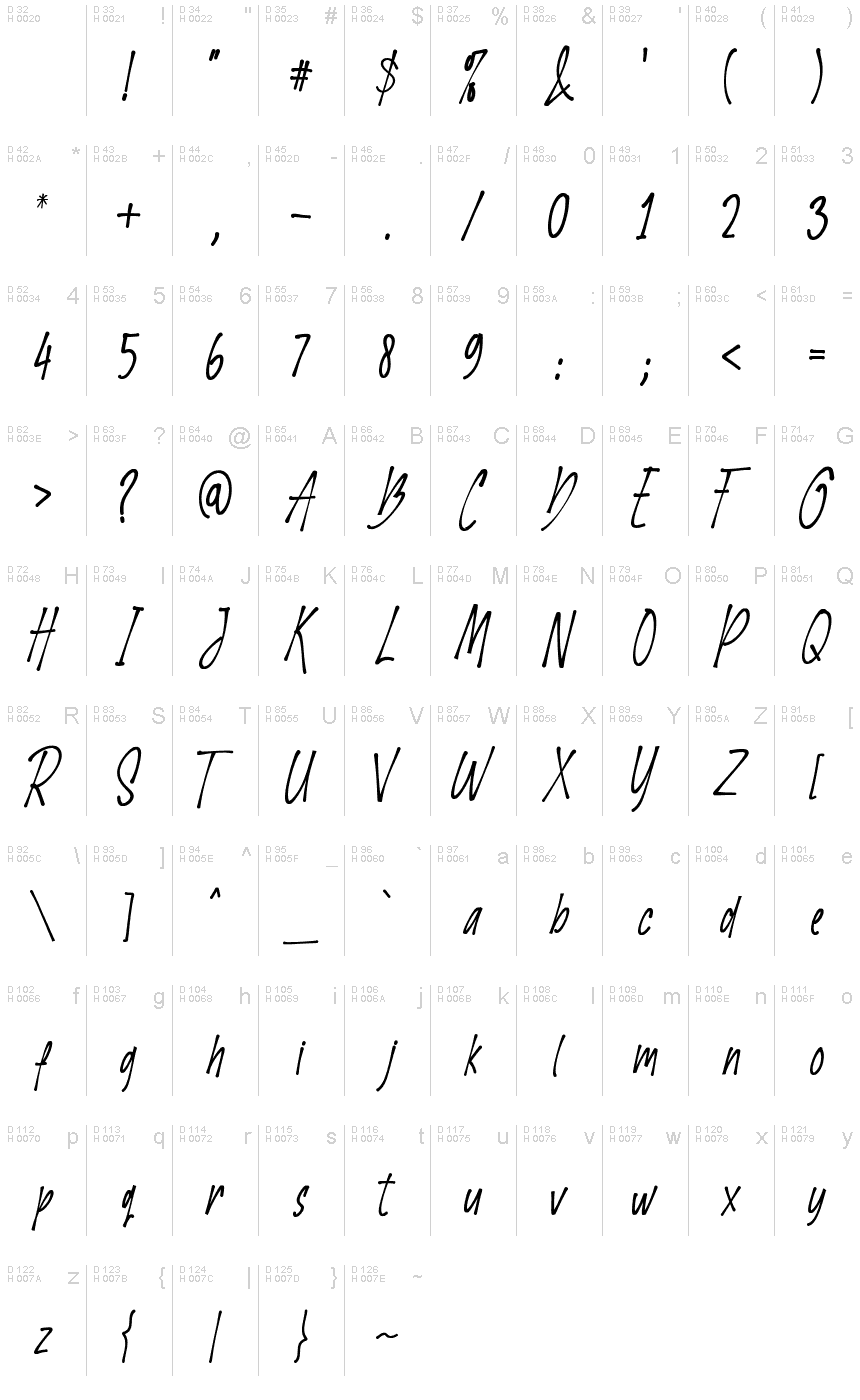
Barleria
Barleria is a charming semi-light handwritten font designed by ekosamp. Its condensed width adds a touch of elegance to any project, making it perfect for invitations, greeting cards, and wedding stationery. Barleria's playful style also makes it suitable for children's books and branding materials for creative industries such as fashion and beauty. With its unique character shapes and ligatures, Barleria is sure to make your designs stand out. Enhance your next project with the whimsical charm of Barleria!